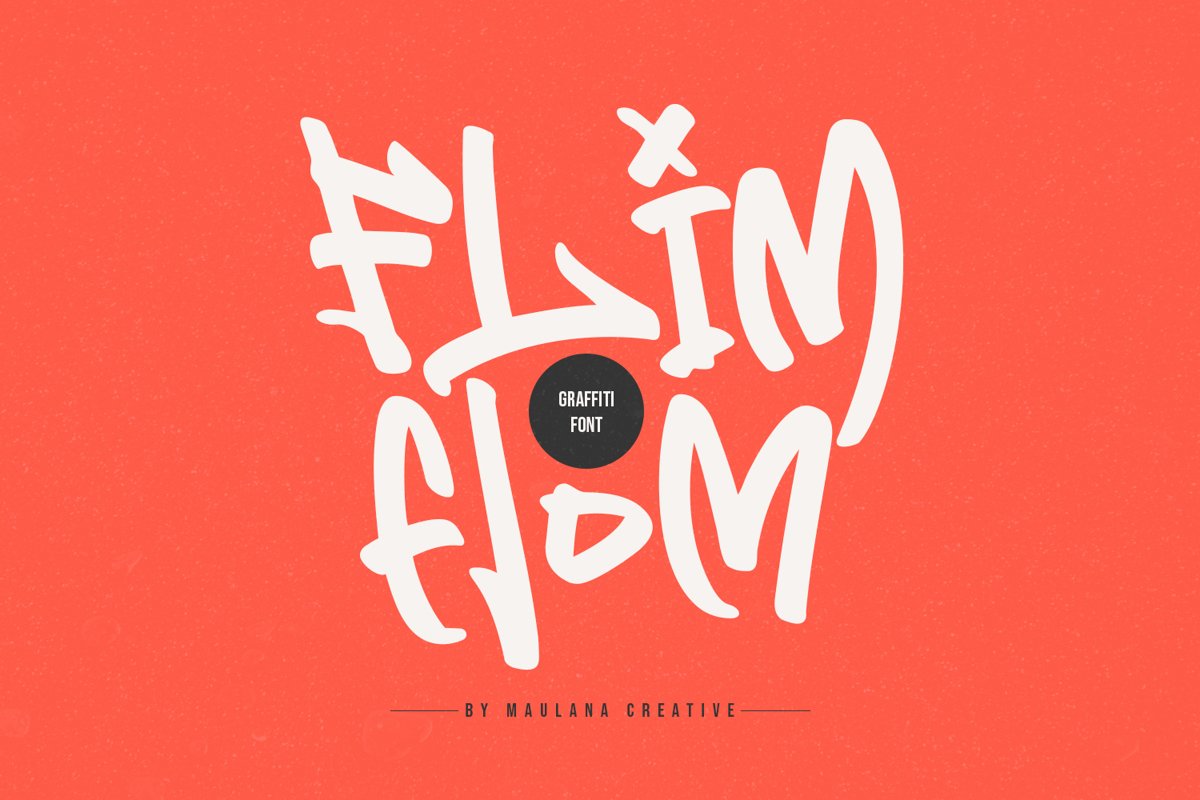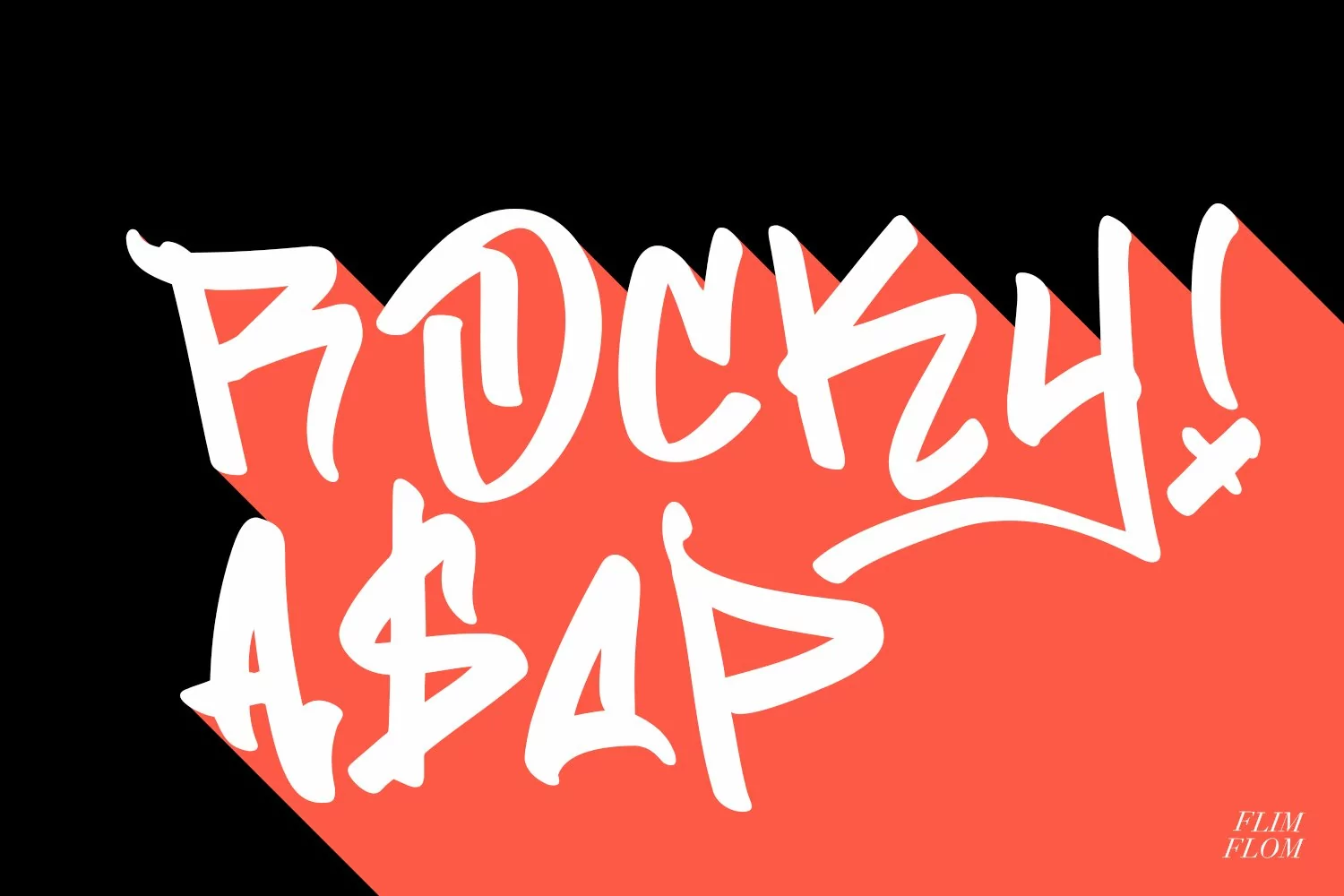
Flim Flom - Graffiti Font Brush Typeface Lettering
Give your designs an authentic handcrafted feel. Flim Flom - Graffiti Font is perfectly suited to stationery, logos and much more.